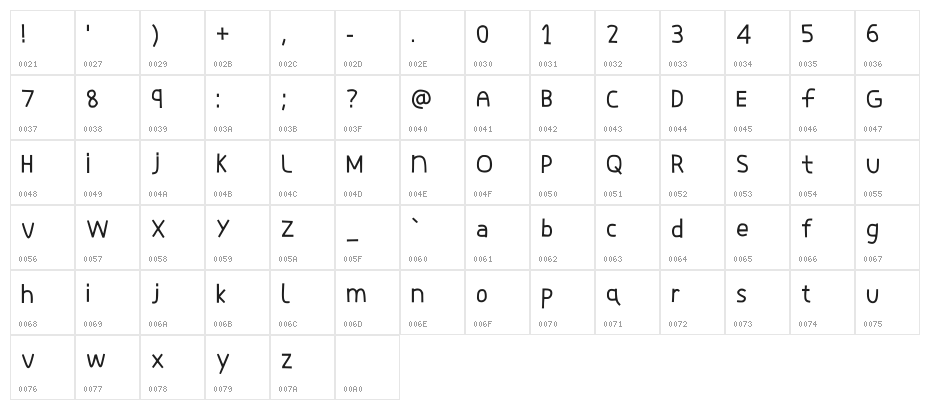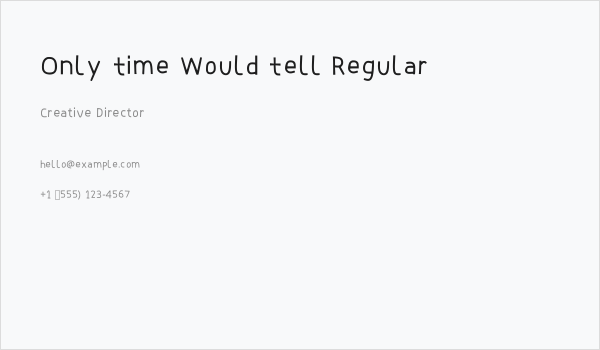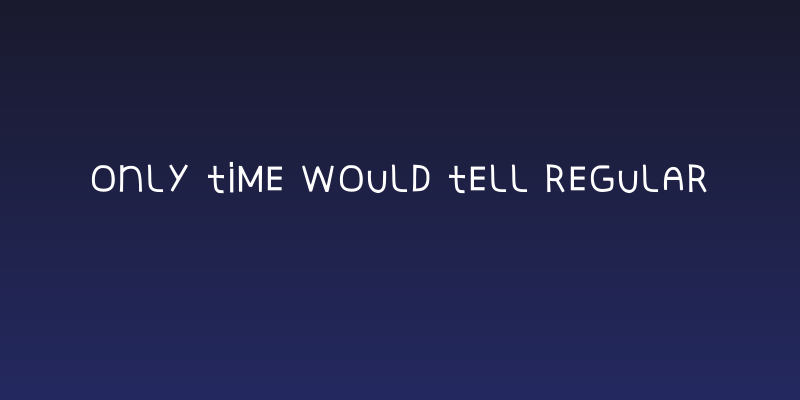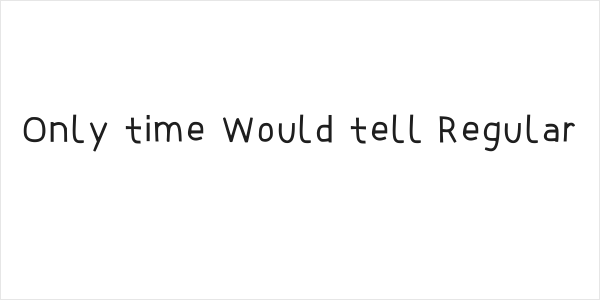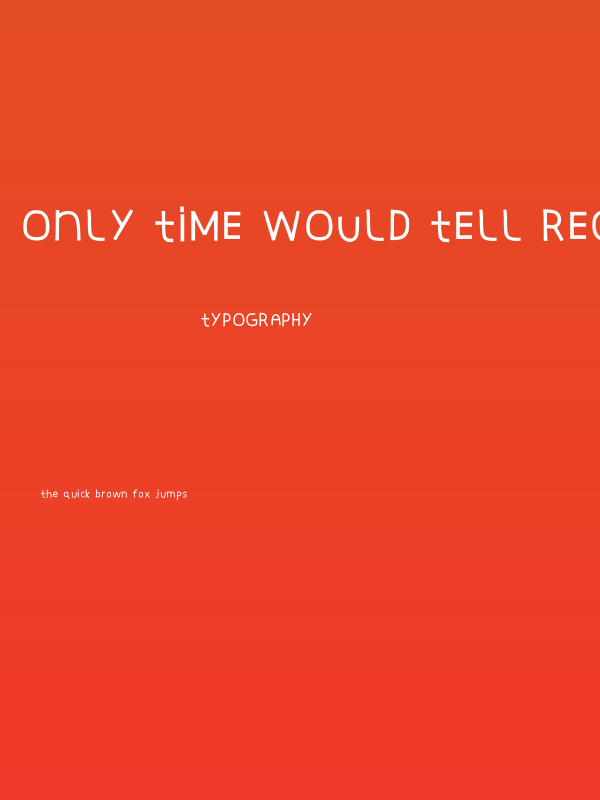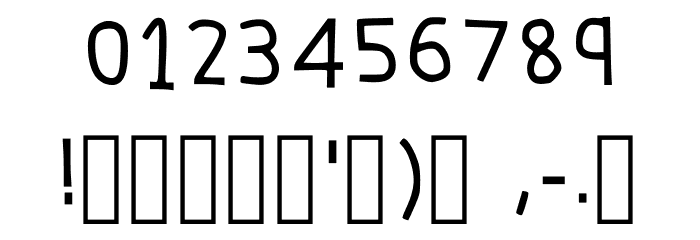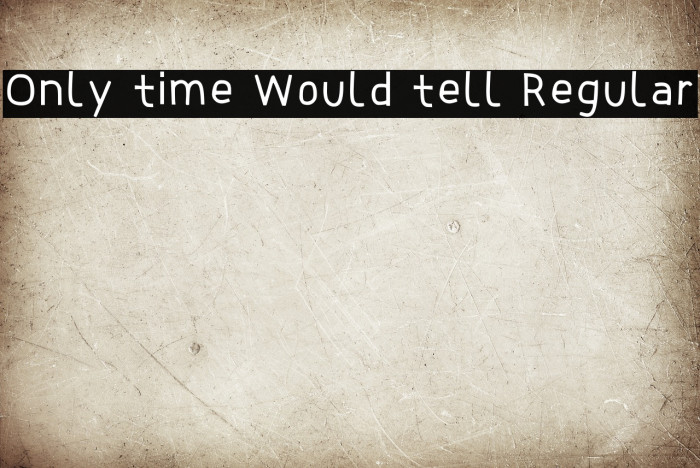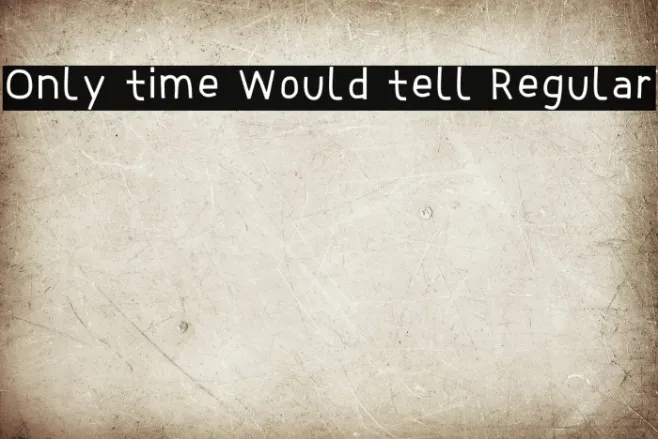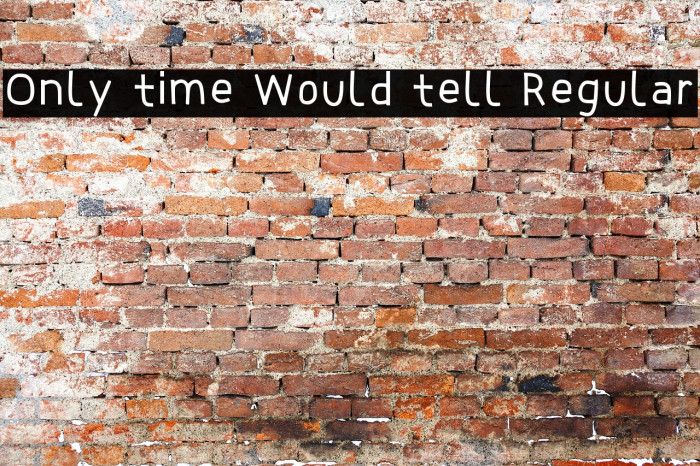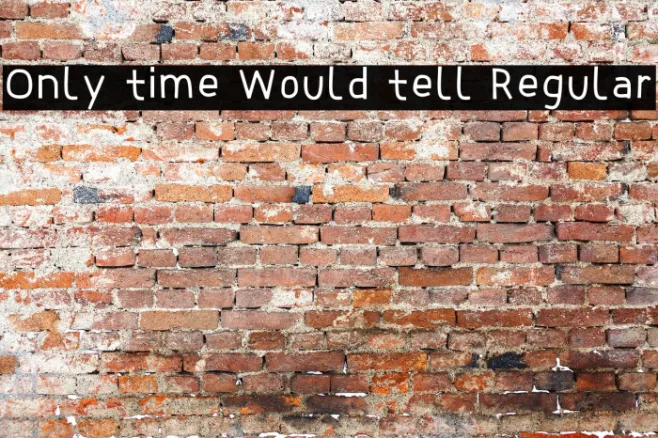
Only Time Would Tell Regular Font
Only Time Would Tell Regular Description
This font features a modern and clean design with a slightly playful touch. The characters are sans-serif, exhibiting a uniform stroke width that gives a consistent and balanced appearance. The uppercase letters are slightly taller than the lowercase, providing a clear distinction between the two. The numerals are straightforward and align well with the overall style. Special characters are designed to match the simplicity and clarity of the alphabetic characters. The font maintains a friendly and approachable feel, making it versatile for various applications.
| Proposed Projects | Ideal for branding, web design, and advertising where a modern and approachable look is desired. |